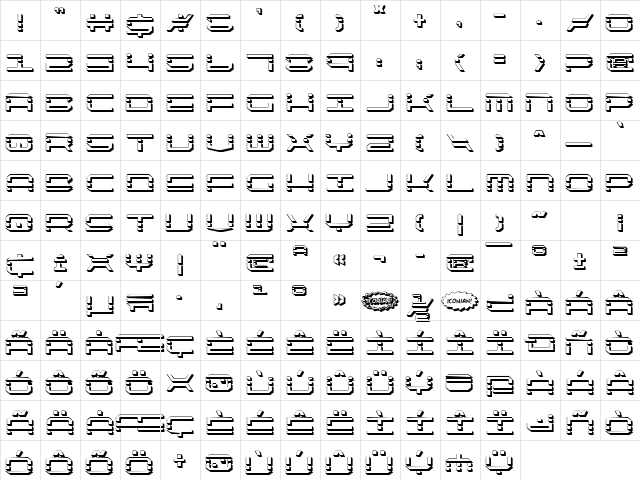
QuickQuick Shadow Shadow
| Style | Shadow |
Design Context for QuickQuick Shadow Typeface
QuickQuick Shadow brings ornamental detail and strong personality to headlines and identities, where visual impact matters more than quiet functionality.
Font Pairing: Pair with a clean neutral sans-serif for body copy to let QuickQuick Shadow's character lead without overwhelming the composition.
Pro Tip: Use QuickQuick Shadow exclusively at display sizes — it was designed to be seen, not read at length. Let a neutral companion handle body copy.